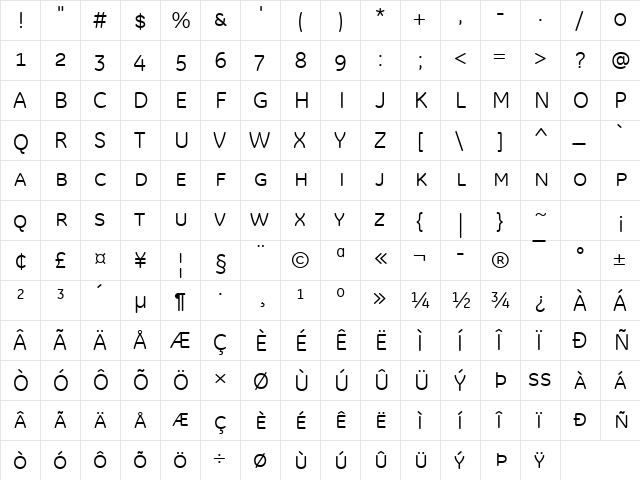
GE Inspira Small Caps Regular
| Foundry | Agfa Monotype Corporation |
Design Context for GE Inspira Small Caps Typeface
GE Inspira Small Caps offers clean, dependable letterforms without strong stylistic allegiance, making it a practical choice for designers who need flexibility.